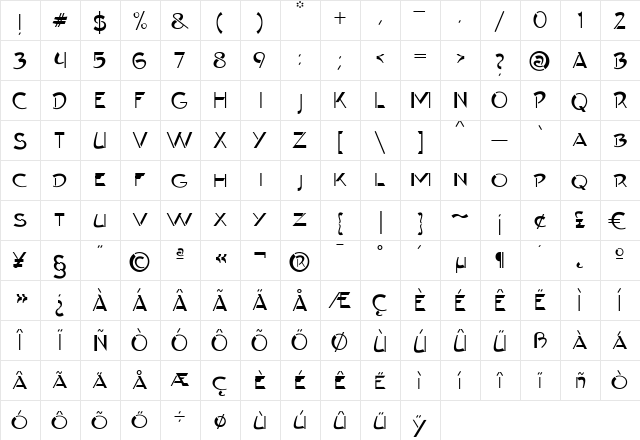
Contype Plain SmallCaps Regular
Design Context for Contype Plain SmallCaps Typeface
Contype Plain SmallCaps offers clean, dependable letterforms without strong stylistic allegiance, making it a practical choice for designers who need flexibility.